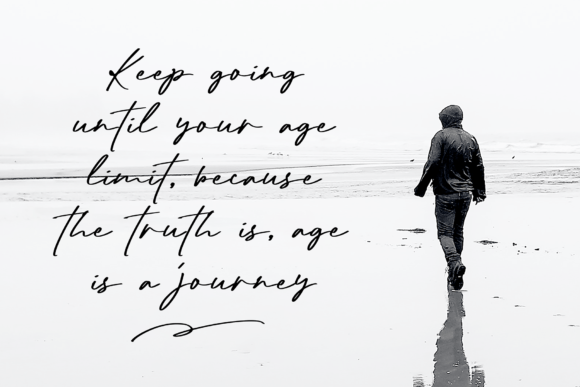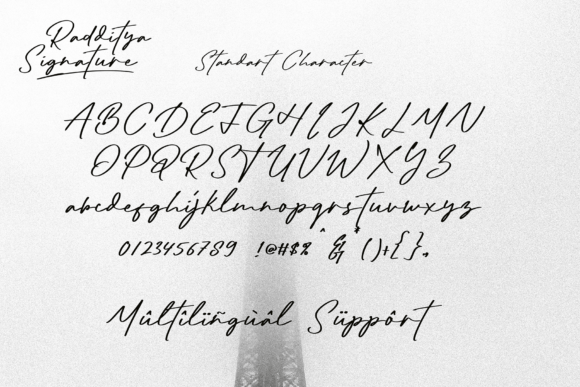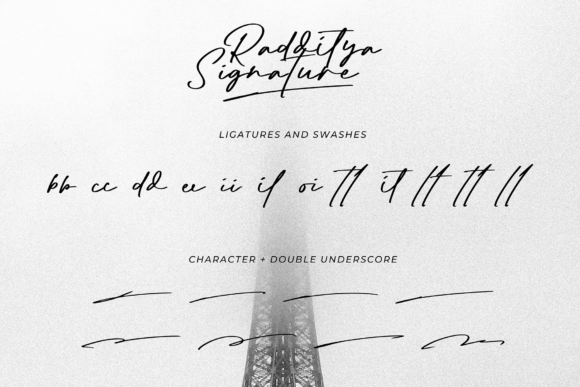
Introduction to Radditya Signature Font
Experience elegance and sophistication with Radditya Signature – the must-have signature font for any design project.
Crafted with meticulous attention to detail, Radditya Signature features sleek, flowing lines and unique flourishes that bring a touch of class to any design With unique ligatures and swash characters, you have complete creative control to make your designs truly unique.
Key Features of Radditya Signature Font
Why Choose Radditya Signature Font?
Radditya Signature Font offers exceptional quality and versatility, making it a valuable addition to your design toolkit. Whether you’re creating for personal projects or commercial use, Radditya Signature Font delivers professional results.